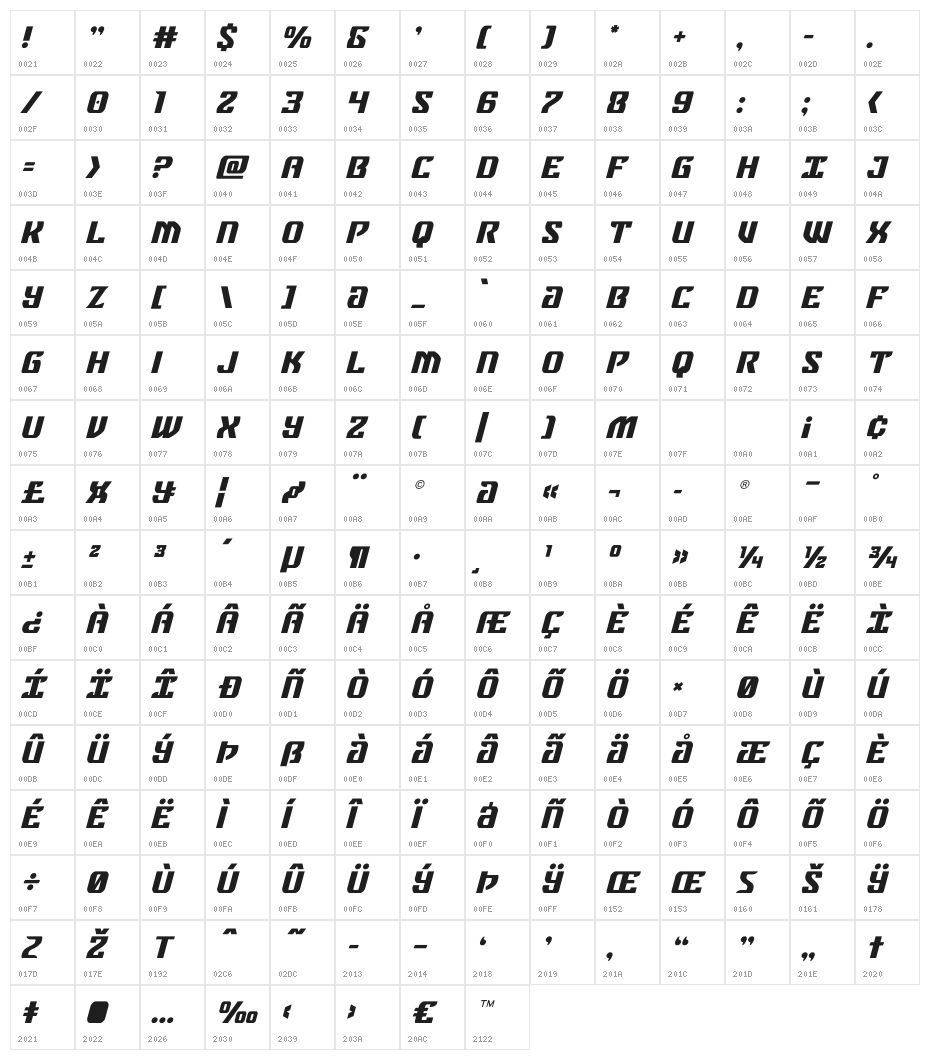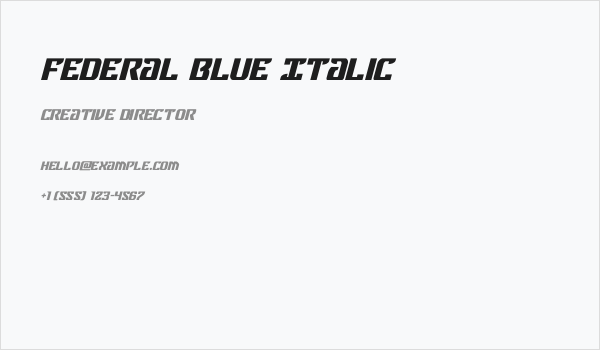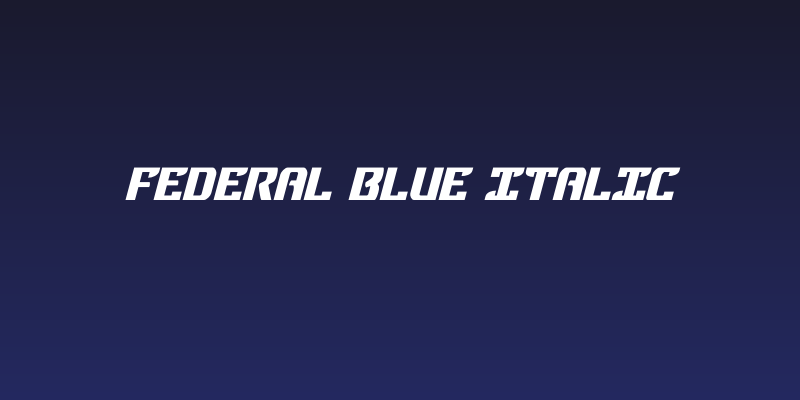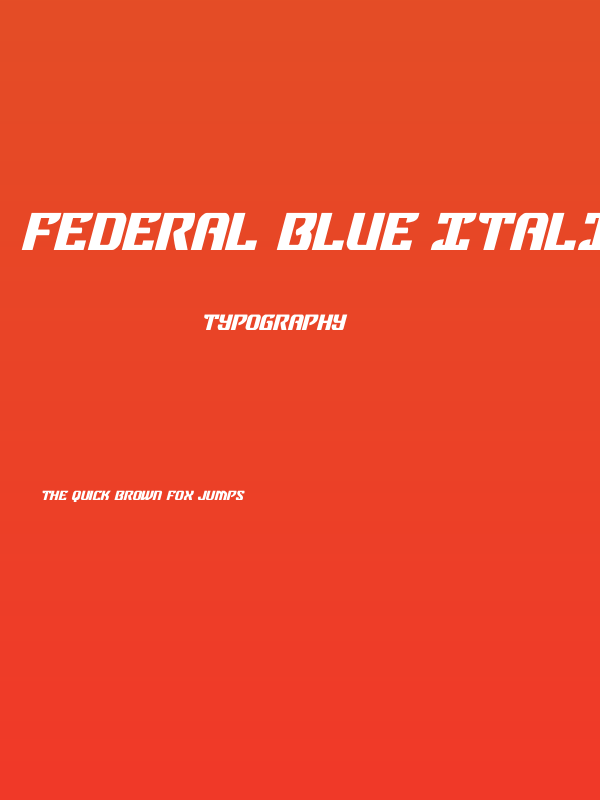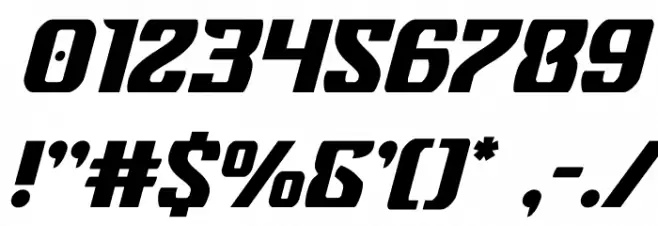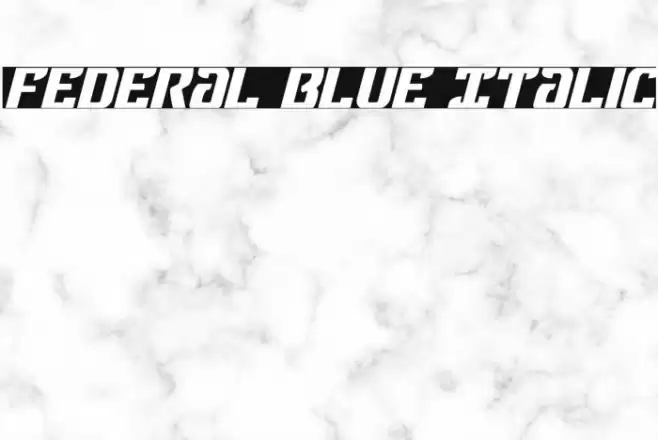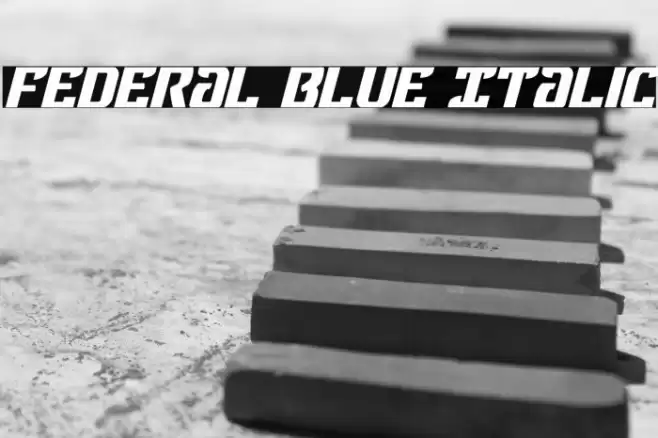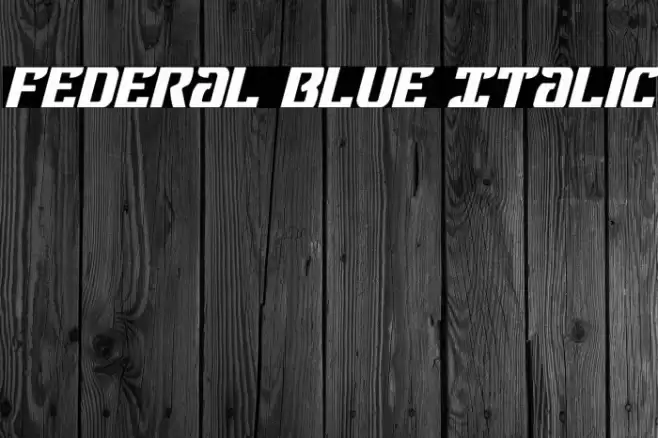
Federal Blue Italic Font
This font features a bold and dynamic style with a strong italic slant, giving it a sense of motion and energy. The characters are robust and angular, with sharp edges and a modern aesthetic. The uppercase and lowercase letters maintain a consistent style, while the numbers and special characters complement the overall design. The font's boldness and slant make it ideal for impactful headlines and attention-grabbing designs. Its unique style is both contemporary and versatile, suitable for a variety of creative projects.
| Proposed Projects | Ideal for sports branding, dynamic posters, and modern advertising campaigns. |